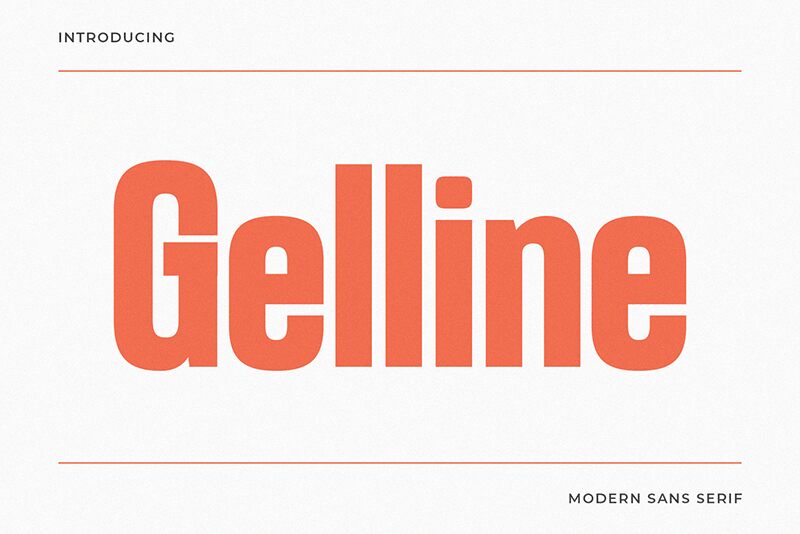
Gelline
Gelline, crafted by BrandSemut, is a bold sans serif font that commands attention with its strikingly condensed form. The robust weight of the letters exudes confidence and authority, making it an excellent choice for impactful headlines and branding that seeks to leave a lasting impression. Its clean lines and modern aesthetic ensure readability while conveying a sense of sophistication.
Gelline's unique characteristics make it versatile for various design contexts-whether it's for dynamic posters, sleek logos, or eye-catching digital interfaces. This font stands out as an ideal option for designers aiming to blend contemporary style with bold visuals.